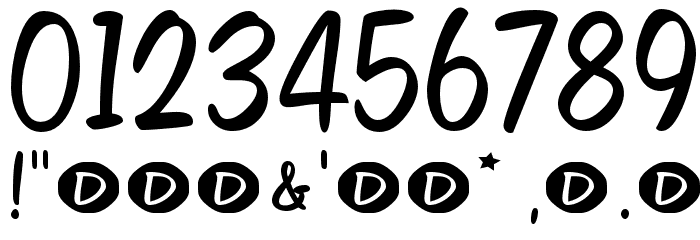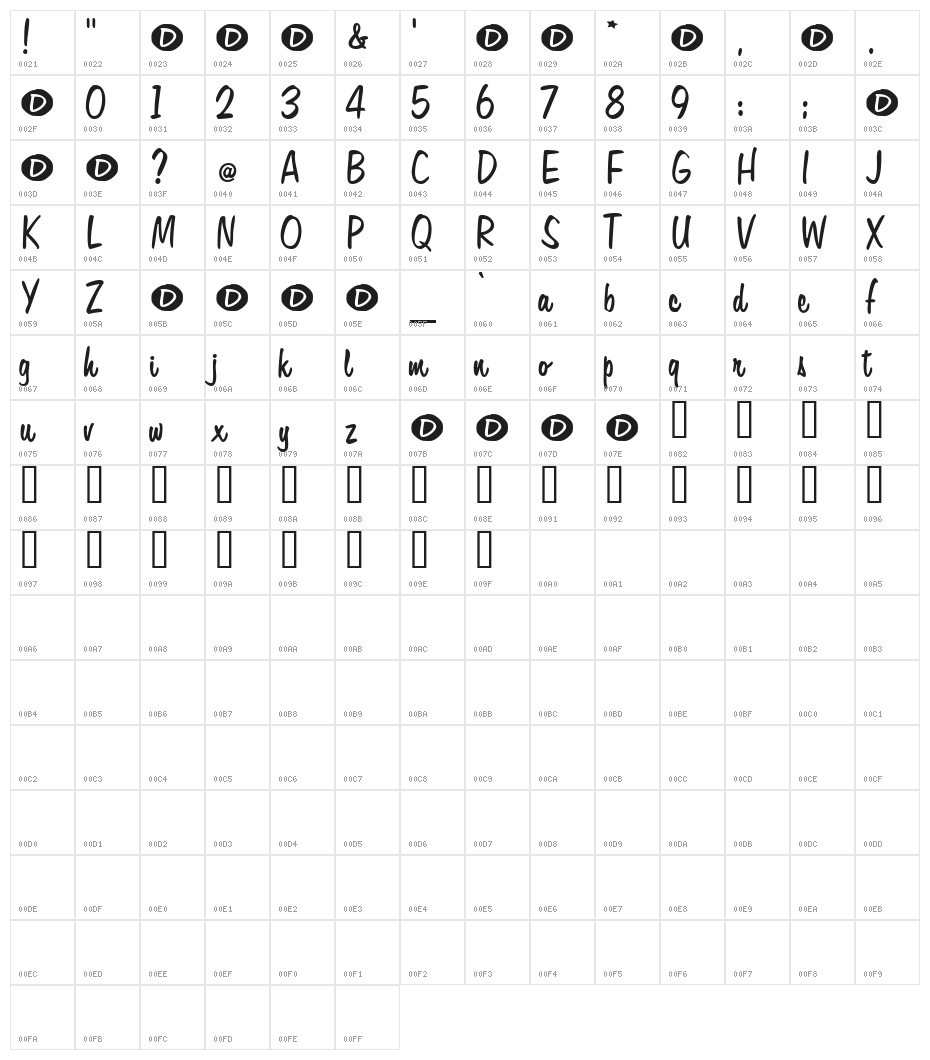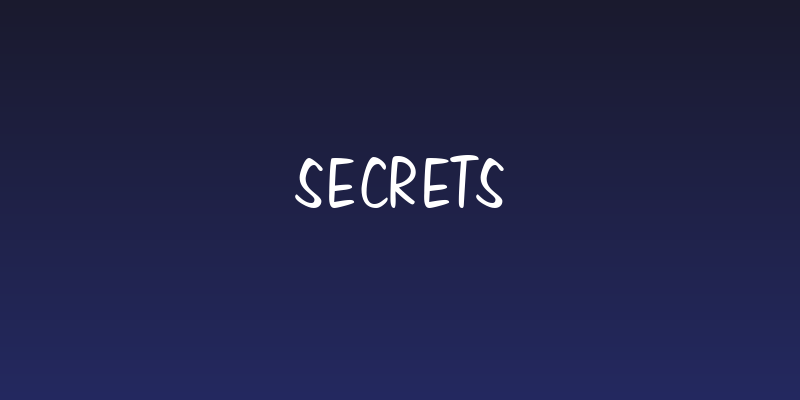
Secrets Font
Secrets Description
This font features a playful and casual handwritten style, characterized by its smooth curves and slightly irregular letterforms. The uppercase letters are bold and rounded, giving a friendly and approachable feel. The lowercase letters maintain a consistent flow, with some characters extending slightly below the baseline, adding to the font's informal charm. The numerals are well-proportioned and match the overall style, while the special characters are distinct and easily recognizable. This font is versatile, suitable for projects that require a personal touch or a relaxed aesthetic.